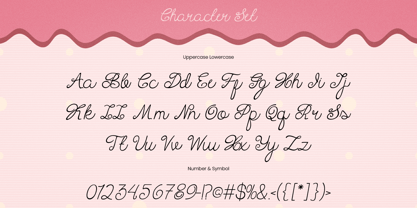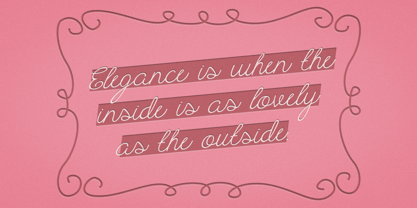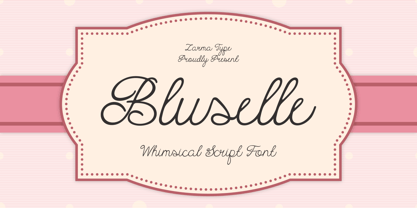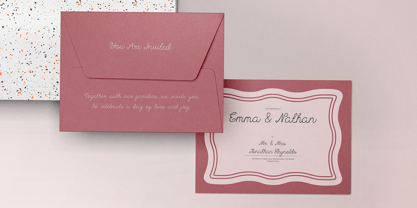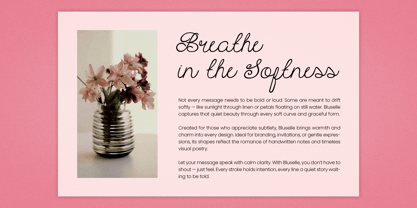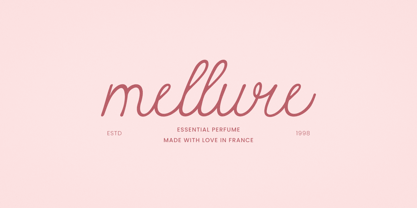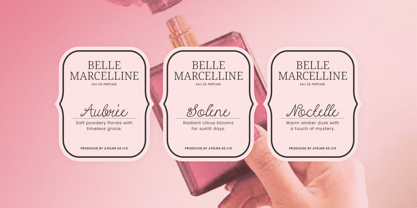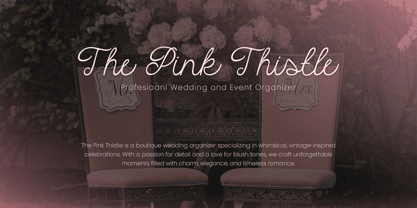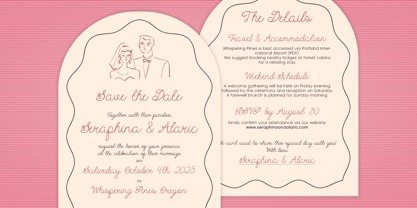
Bluselle
by Azzam Ridhamalik
The Bluselle Font Family was designed by Azzam Ridhamalik and published by Azzam Ridhamalik. Bluselle contains 1 styles.
Bluselle is a whimsical script font designed to bring sweet personality and romantic elegance to your design work. With its flowing letterforms, gentle curves, and handwritten style, Bluselle is ideal for projects like invitations, packaging, and soft branding that need a personal, feminine touch.
Complete with upper and lowercase characters, multilingual support, and a smooth connected flow, this font is both functional and beautiful. Whether for weddings, product labels, or heartfelt quotes, Bluselle helps your message shine with warmth and charm.